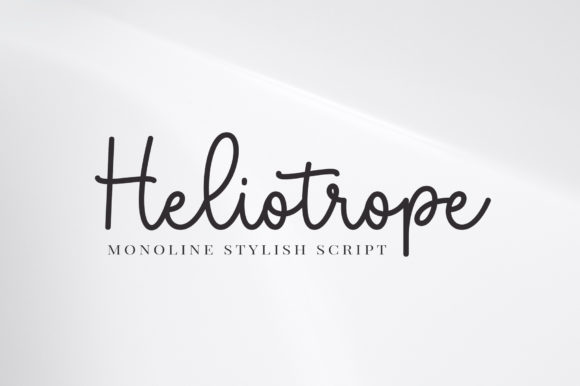
Introducing Heliotrope Font - A Delicate Script for Timeless Creations
Heliotrope Font, a captivating script font, beckons you to a world of elegance and grace. Its thin, flowing letters evoke a sense of harmony and romance, elegantly adorning your invitations, stationary, social media, and more.
With Heliotrope Font, your words will dance upon the page, leaving an indelible mark of beauty. Its delicate strokes evoke a sense of timeless allure, making it the perfect choice for those seeking to create enduring impressions. Let your creativity flourish as you weave magical invitations, enchanting stationary, and captivating social media posts that leave a lasting impact.
Whether you are a seasoned designer or just starting your creative journey, Heliotrope Font will be your steadfast companion. Its versatility knows no bounds, effortlessly blending into various artistic styles and projects. From classic to contemporary, whimsical to sophisticated, let Heliotrope Font be your canvas for extraordinary expressions.
Why Choose Heliotrope Font:
- Timeless Elegance: Its graceful characters exude a timeless beauty, ensuring your designs transcend the trends of time.
- Versatile Expression: Embrace the creative freedom to mold Heliotrope Font into your unique vision, allowing it to seamlessly adapt to a myriad of projects and styles.
- Effortless Design: Let Heliotrope Font's intuitive design guide you effortlessly through your creative endeavors, making even the most complex projects seem like a breeze.
- Unparalleled Legibility: Each letter, meticulously crafted, ensures effortless readability, captivating your audience with its clarity and charm.
- Endless Possibilities: Unleash your imagination and explore the endless possibilities that Heliotrope Font offers, turning your creative visions into tangible masterpieces.
Step into the realm of elegance with Heliotrope Font, where your creativity will flourish, and your designs will captivate hearts. Experience the magic of timeless artistry today!